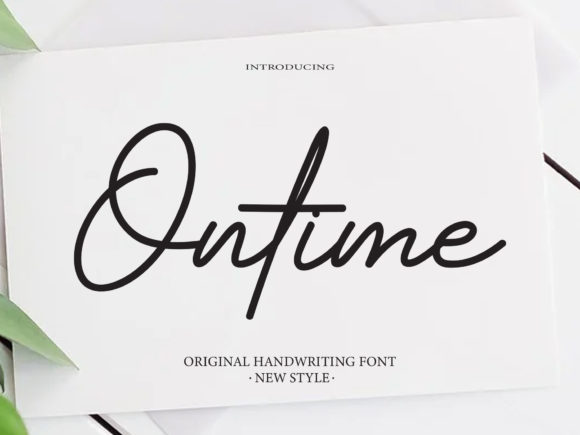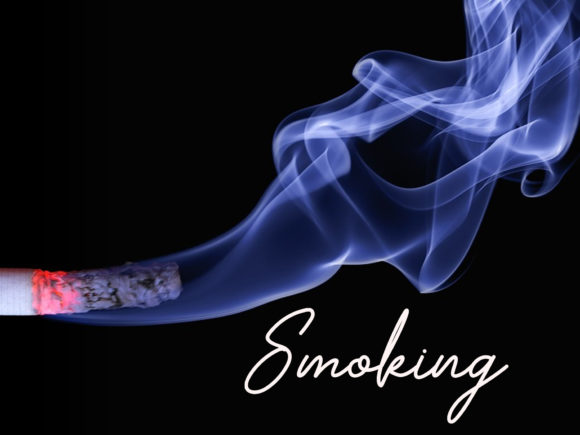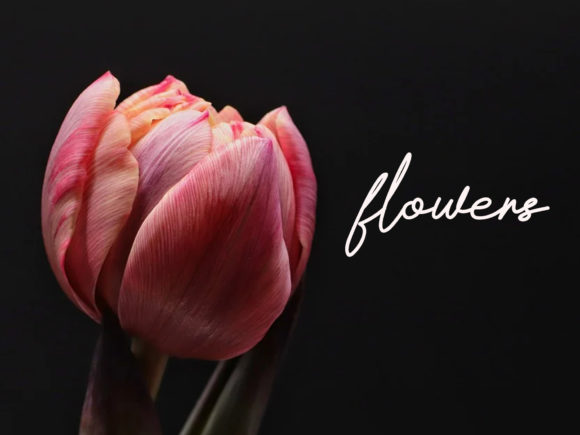
About Ontime Font
“Ontime” is a delicately crafted handwritten font that adds a touch of elegance and uniqueness to a wide range of design projects. With its carefully designed details and graceful strokes, this font brings a sense of sophistication to your creations.
When used for writing letters, “Ontime” lends a personal and intimate feel to your correspondence. Its flowing and graceful characters create a sense of connection, making each word feel like a heartfelt message.
Invitations take on a refined and charming look with the addition of “Ontime.” Whether it’s a wedding, gala, or any special event, the font’s handwritten style sets the tone for a sophisticated and memorable occasion.
For food products, “Ontime” adds a dash of luxury to labels and packaging. Whether it’s gourmet treats or artisanal goods, the font’s elegant appearance conveys a sense of premium quality and attention to detail.
The versatility of “Ontime” extends beyond text. It can be used to create decorative elements and flourishes that enhance the overall design. From ornate borders to intricate motifs, the font’s graceful curves add a touch of beauty to any project.
In branding, “Ontime” can be a distinctive choice for logos that want to evoke a sense of refined elegance and timeless style. Its handwritten aesthetic adds a unique and personal touch to the brand’s identity.
Packaging is elevated with the addition of “Ontime.” The font’s sophisticated and stylish look transforms ordinary product labels into upscale and eye-catching designs, capturing the essence of luxury and exclusivity.
Overall, “Ontime” is a carefully crafted font that brings cool and unique design possibilities to various projects. Whether you’re writing letters, creating invitations, labeling food products, adding decorative details, or enhancing branding and packaging, “Ontime” adds a touch of elegance and sophistication that sets your creations apart.